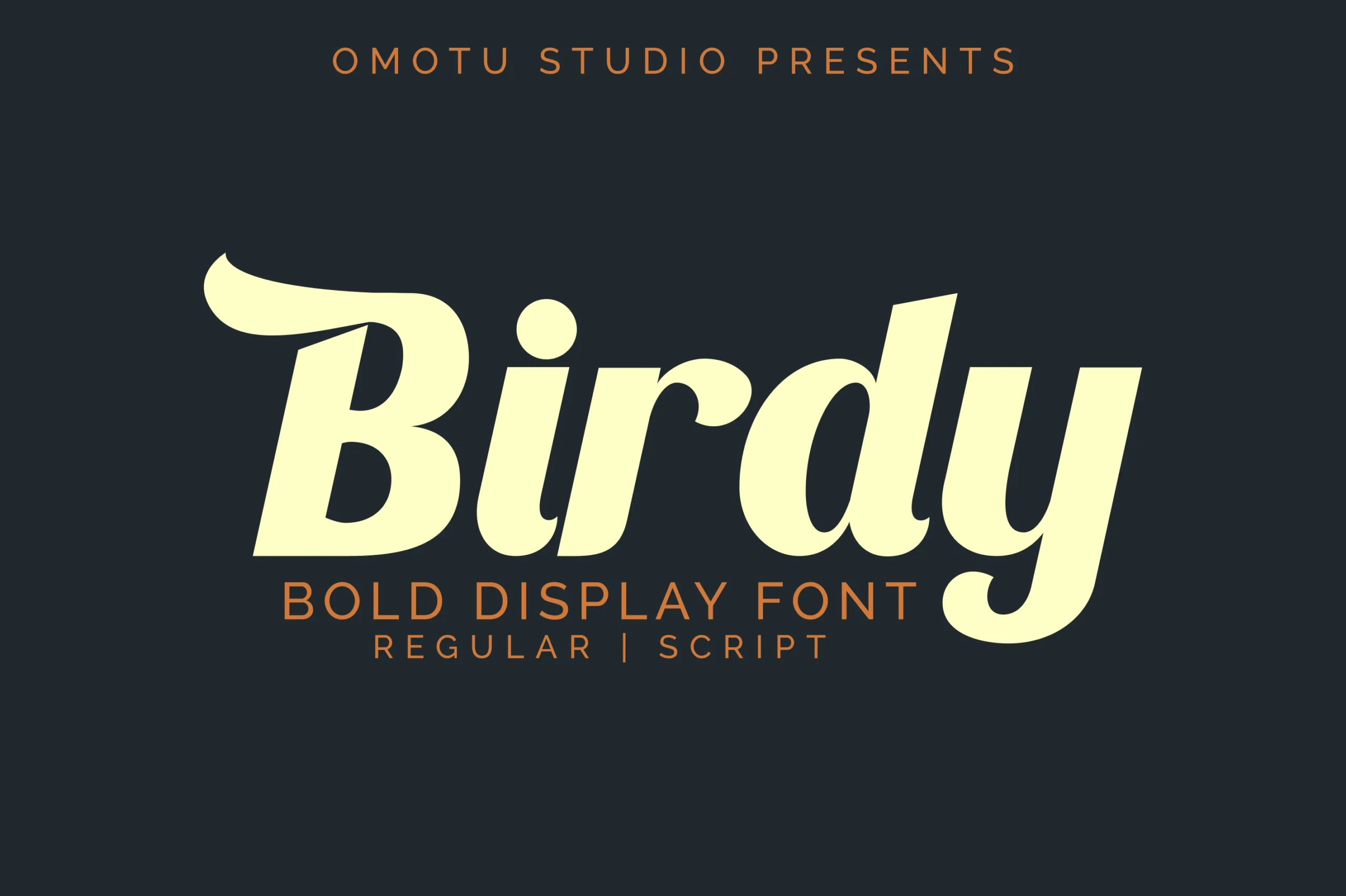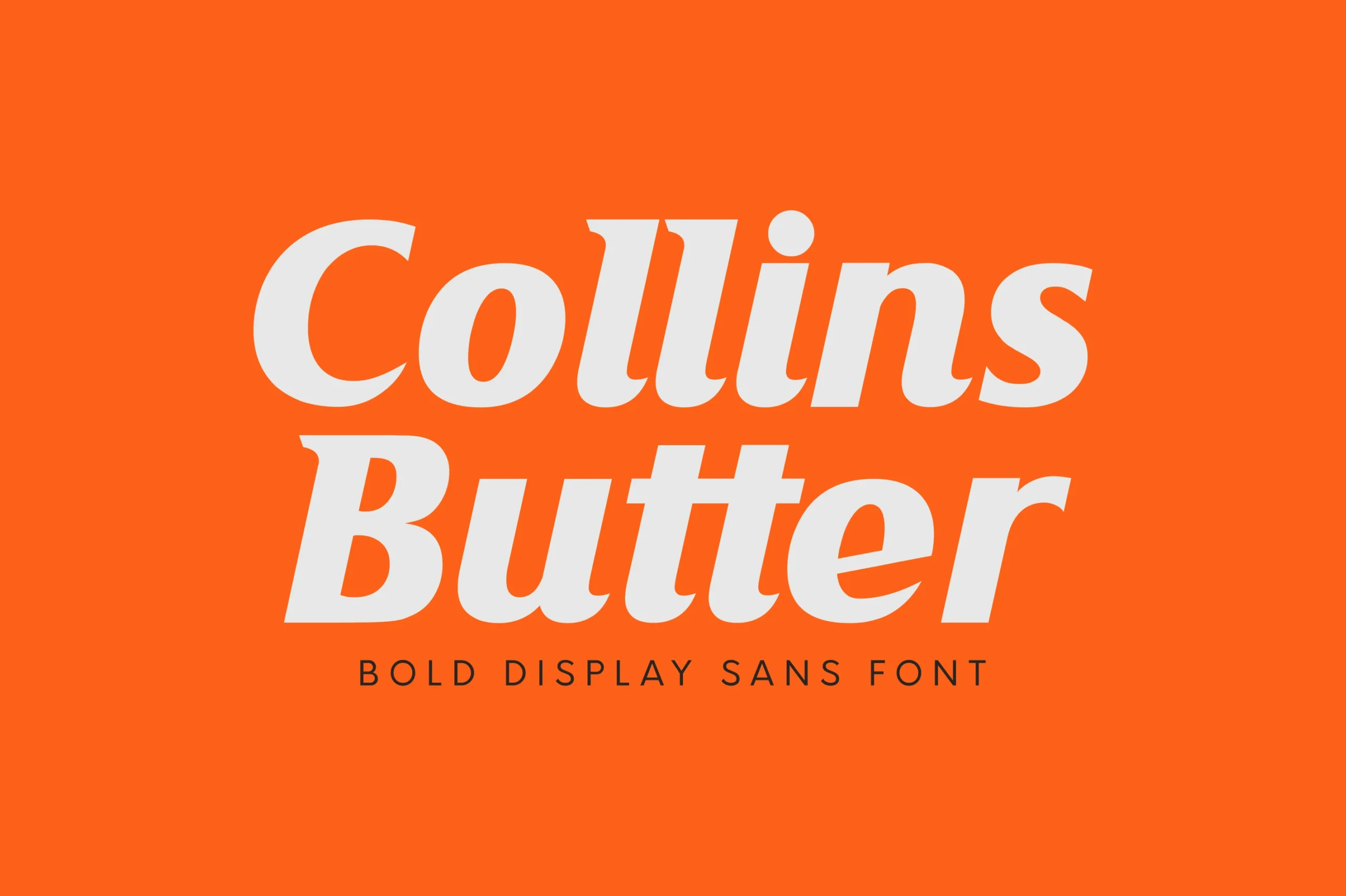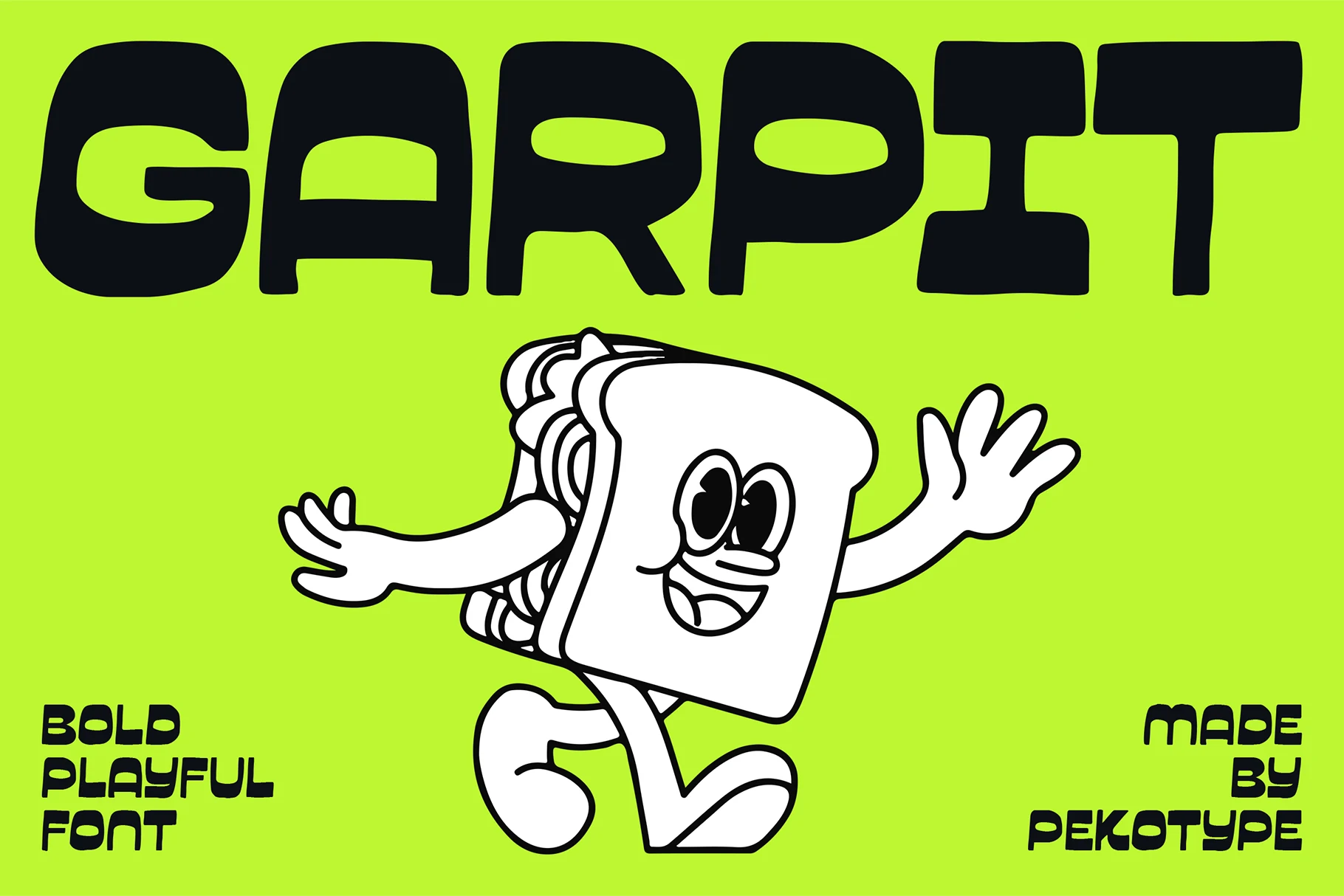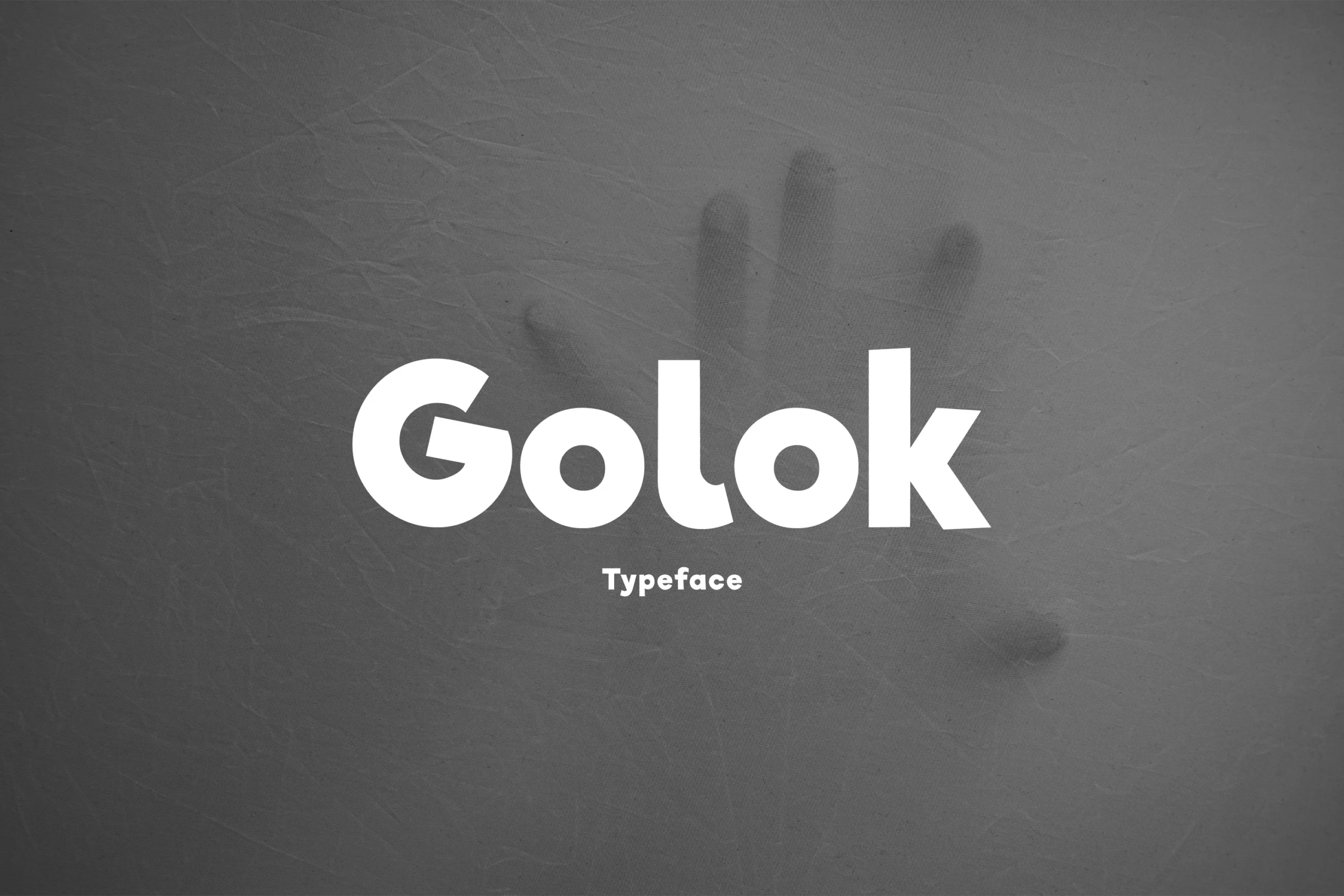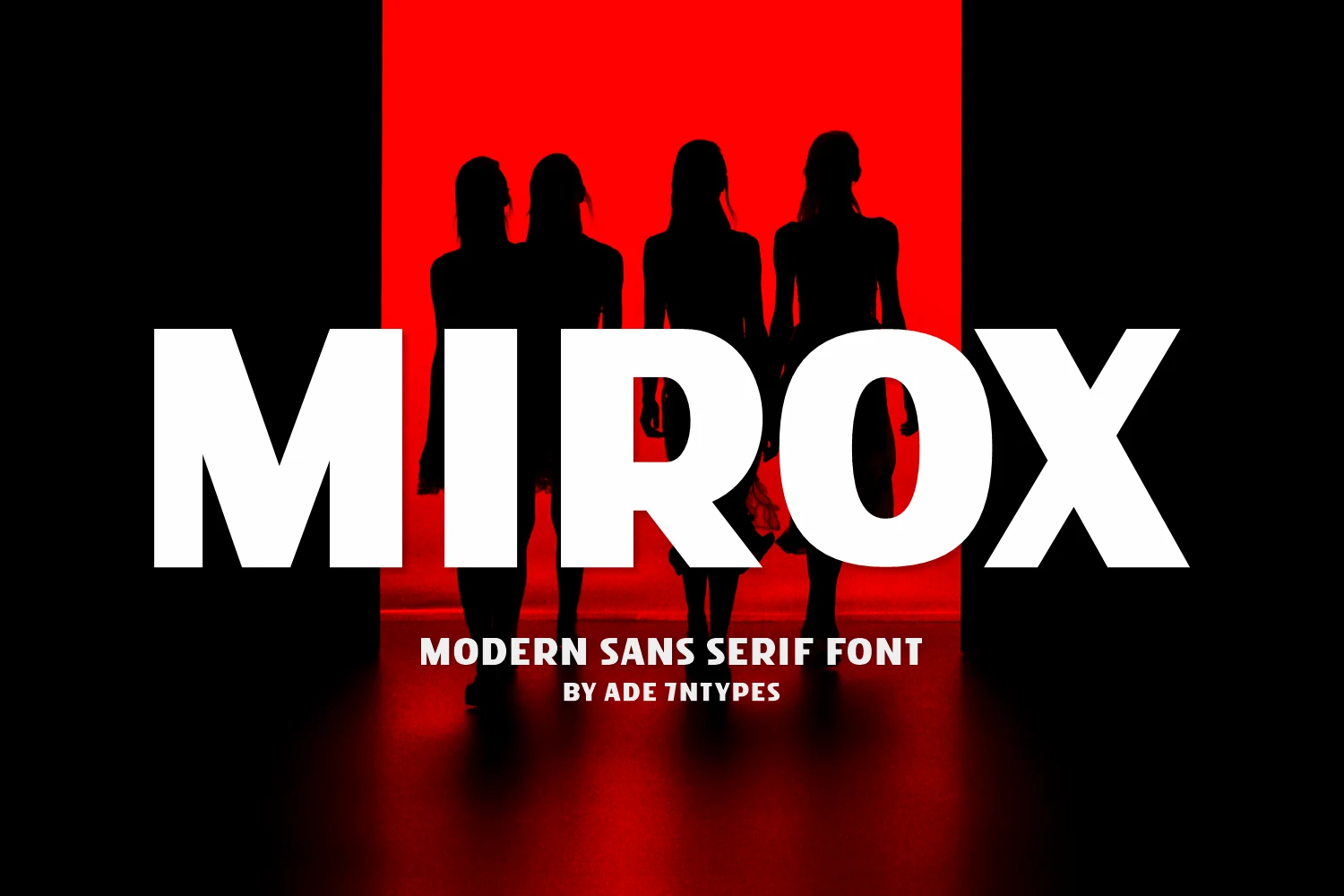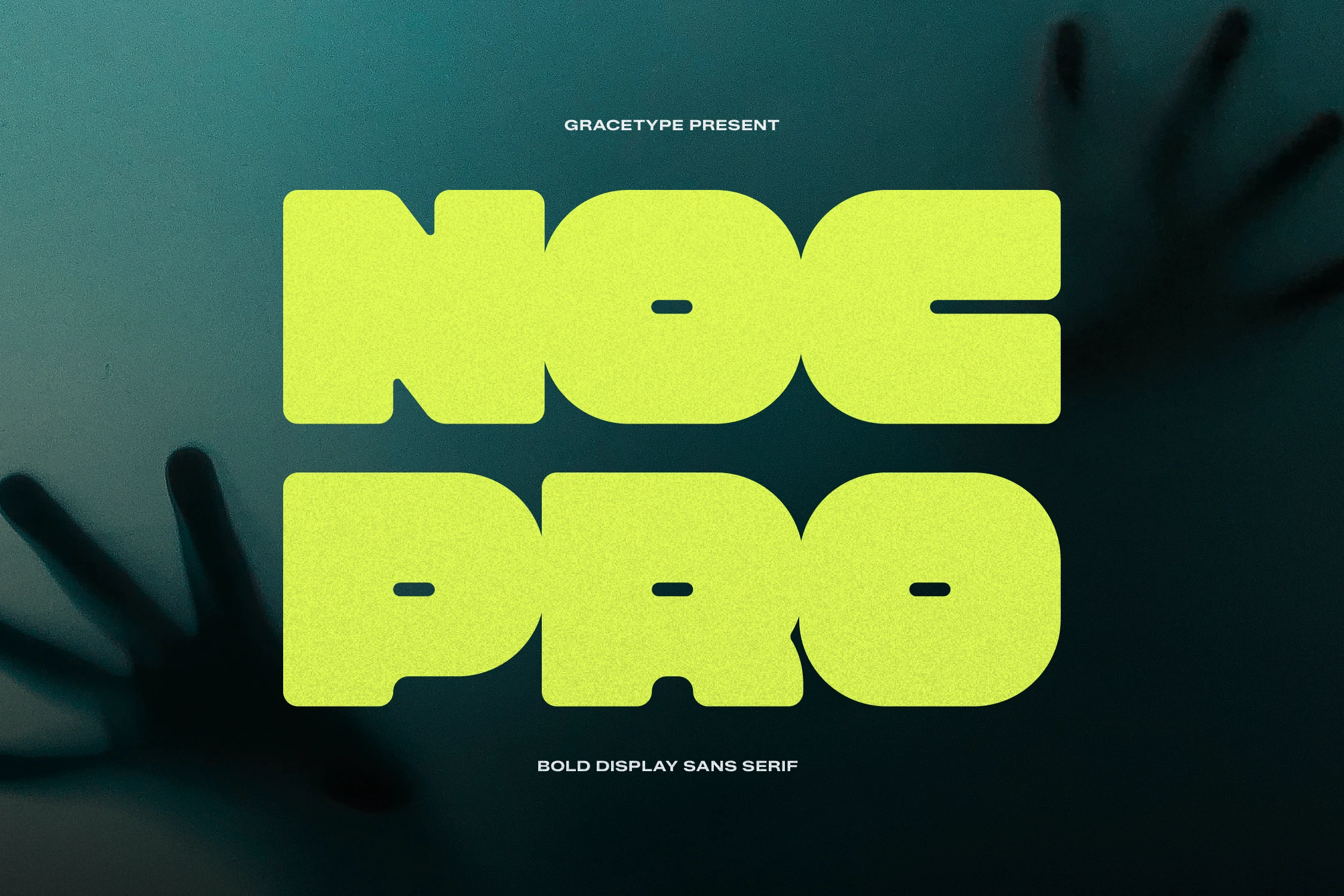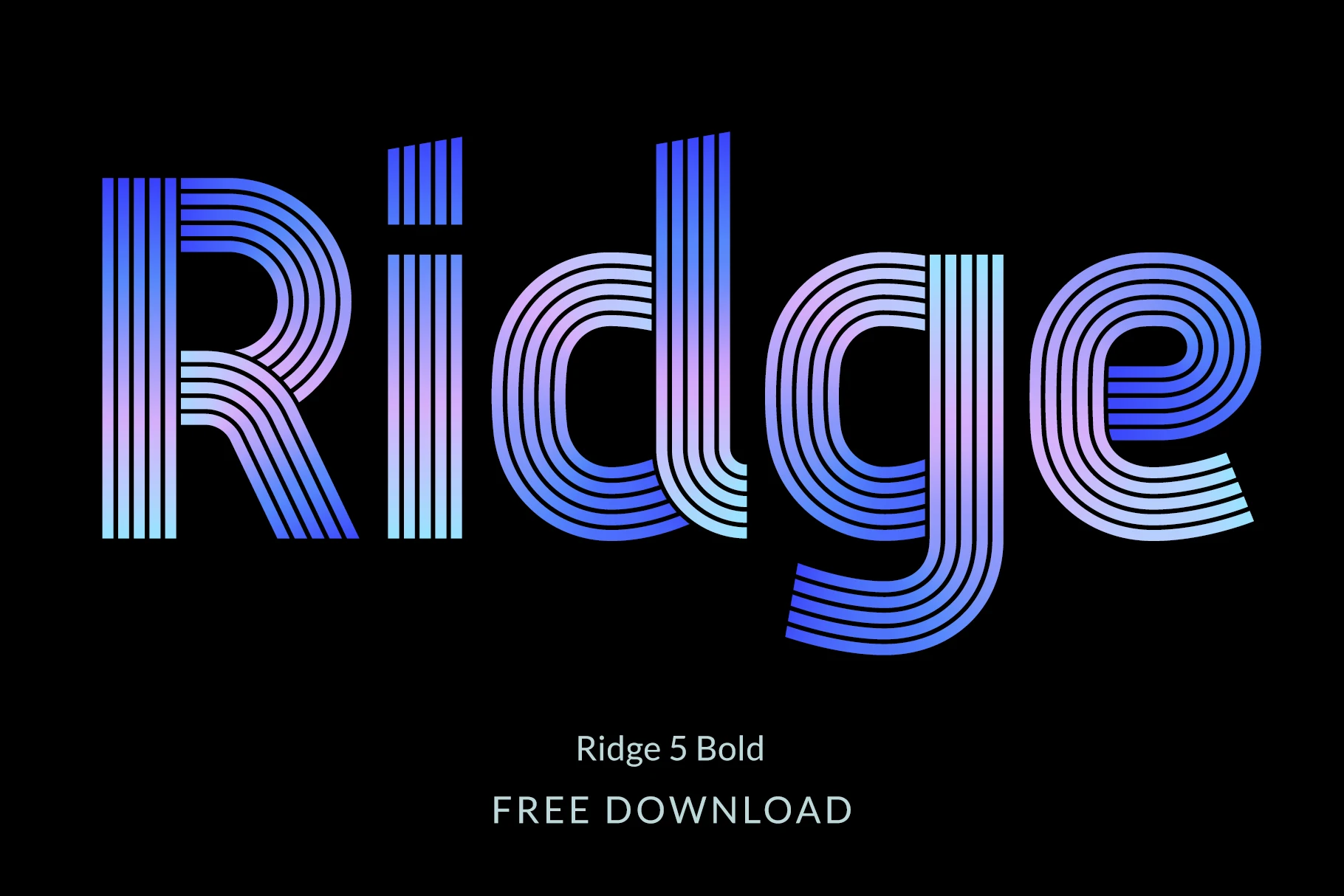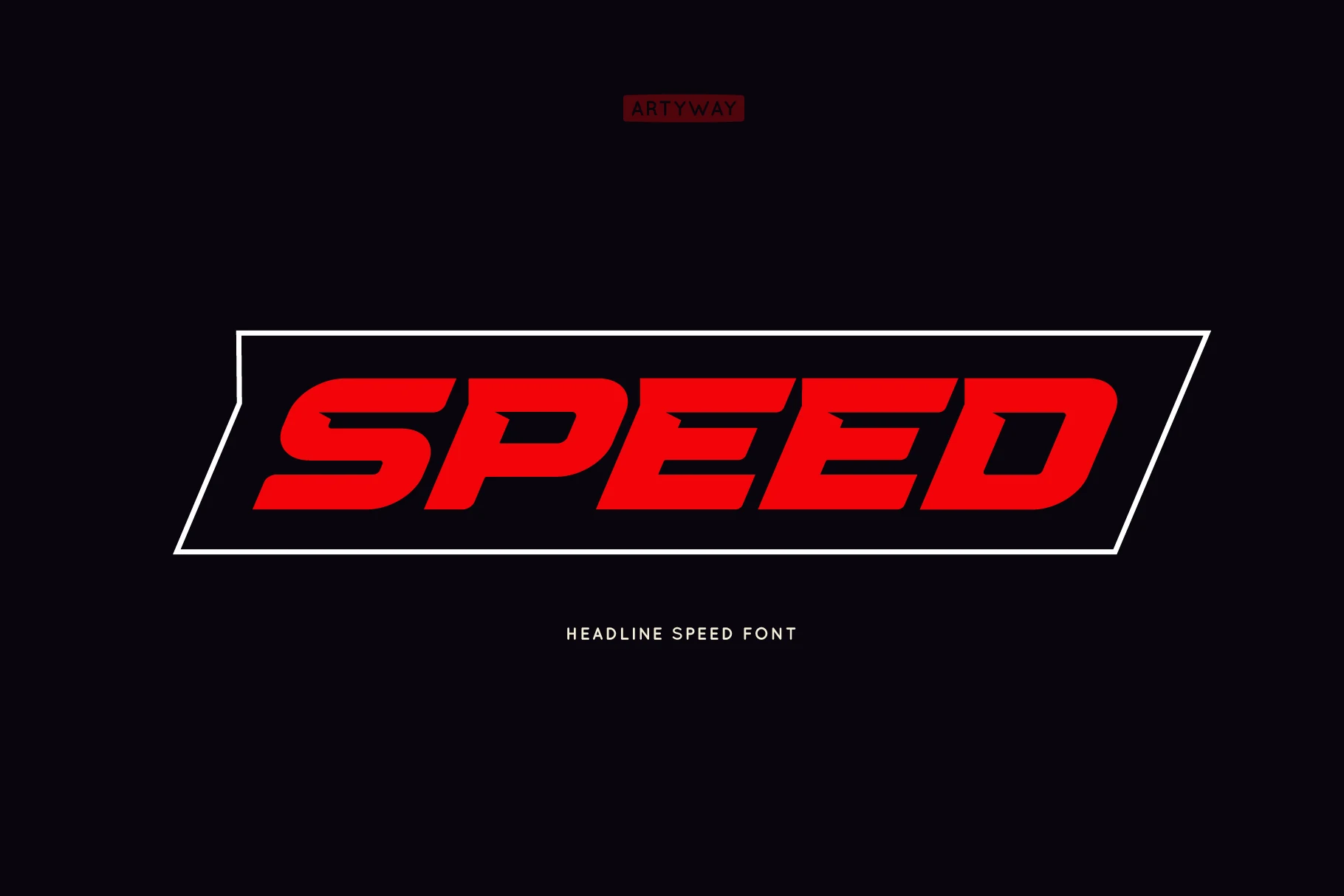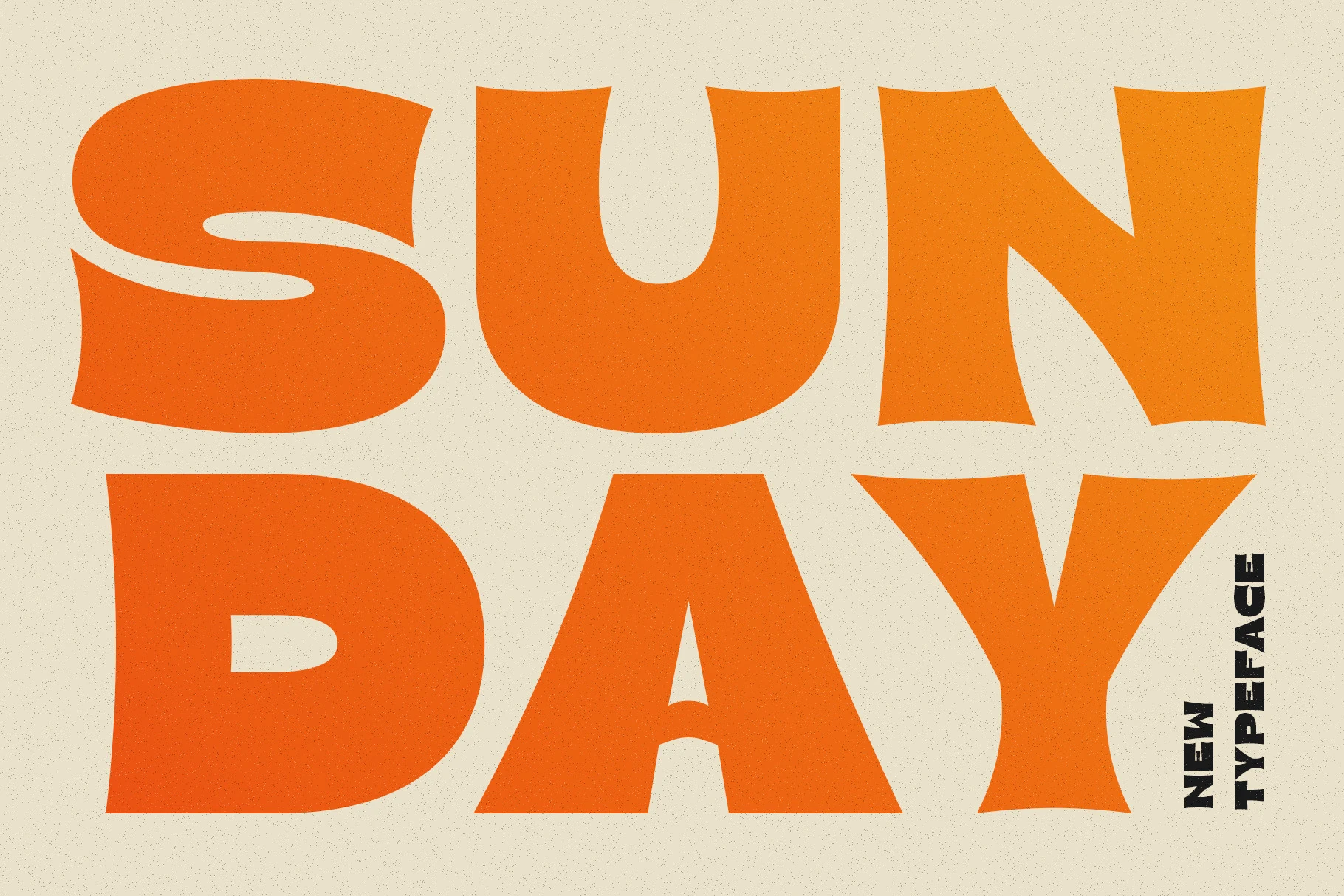
Cover image with font previews from 25 Bold Display Fonts for Stunning Brand Designs in 2026
25 Bold Display Fonts for Stunning Brand Designs in 2026
Bold Display Fonts help designers build louder titles, logos, posters, packaging, merch graphics, and social media visuals. This roundup is for anyone choosing heavy, high-impact type that needs to stand out fast without losing a clear visual direction.
Vintage Slab & Serif Bold Display Fonts
These heavy serif and slab styles suit vintage labels, poster titles, packaging marks, and logos that need a bold old-school presence.
Rysel Font
Rysel Font bold vintage display lettering with flared serifs
Rysel Font has the heavy presence of late 19th-century display lettering, with broad vertical stems, flared wedge serifs, and carved inner curves that keep the wordmark sharp rather than blocky. Its theatrical shape makes Bold Display Fonts feel especially suited to labels, poster titles, and vintage brand marks.
The letters carry enough detail to command attention, but the ornate cuts need clear spacing and strong contrast around them. Keep Rysel to short words or stacked headlines, where the dramatic serifs can define the hierarchy without fighting smaller supporting text.
Bonaro Family Font
Bonaro Family Font bold distressed vintage slab serif preview
Bonaro Family Font uses a heavy slab-serif build with broad counters, squared stems, and blunt bracketed serifs that give the lettering a stamped antique weight. The distressed texture in the preview pushes it toward old shop signs, packaging marks, and poster typography, where Bold Display Fonts need impact before refinement.
The ten-style family is useful when a design needs one vintage voice with different levels of roughness, outline, stamp, or italic emphasis. Keep the spacing firm and the supporting type quieter; Bonaro works best as the main title layer, not as dense paragraph text.
Monteba Font
Monteba Font bold slab serif lettering with squared stems and cut-in details
Monteba Font is built around massive slab-serif forms, with square shoulders, heavy horizontal stress, and narrow cut-in details that add a mechanical edge to the counters. It gives Bold Display Fonts a firm architectural tone, useful for titles that need force rather than ornament.
The dense weight reads best when the wordmark has enough width and clear contrast around it. Use Monteba for short headlines, poster names, or logo blocks, then balance it with cleaner secondary type so its thick serifs do not crowd the hierarchy.
Brianne Font
Brianne Font tall orange retro display lettering with condensed curves
Brianne Font has a tall, condensed display shape with firm vertical stems, rounded bowls, and a retro serif-like rhythm that feels polished without becoming delicate. Its narrow proportions give Bold Display Fonts a cleaner editorial feel, suited to posters, logo titles, and classy promotional graphics.
The long letterforms create strong height in a layout, so Brianne works best when the wordmark has generous horizontal space and clear contrast. Use it for short names or headline lines, and keep supporting type smaller with wider tracking so the main title stays measured and readable.
Rounded & Playful Bold Display Fonts
These chunky rounded fonts work best for kids’ graphics, stickers, playful packaging, cheerful merch, and bold brand titles with a softer tone.
Zenic Font
Zenic Font bold rounded sans serif display lettering
Zenic Font is a chunky display sans with thick block strokes, flat terminals, and a rounded C that softens the otherwise solid construction. The wide letterforms make Bold Display Fonts feel loud without becoming harsh, especially for food packaging, promo graphics, and playful brand marks.
Its clean shapes keep short headlines readable, but the weight needs open spacing and strong color contrast to avoid feeling crowded. Use Zenic as the primary wordmark or title layer, then let smaller supporting text stay lighter so the heavy forms hold the composition.
Garpit Font
Garpit Font bold playful all-caps display lettering with chunky black shapes
Garpit Font has a chunky all-caps build with swollen curves, tight inner counters, and reverse-contrast stress that gives each letter a rubbery, irregular rhythm. Its oversized shapes make Bold Display Fonts feel energetic and graphic rather than rigid.
The playful weight works best in short words, food branding, youth packaging, and loud promo titles where personality matters more than restraint. Keep the tracking slightly open and avoid busy textures behind it, because the small counters need clear negative space to stay readable.
Bold Kiddo Font
Bold Kiddo Font chunky rounded black display lettering
Bold Kiddo Font uses thick, rounded letterforms with soft corners, wide bowls, and slightly irregular proportions that keep the alphabet friendly rather than polished. Its chunky silhouette gives Bold Display Fonts a clear kids’ craft direction for birthday graphics, school projects, nursery pieces, and cheerful merch.
The broad shapes are useful for stickers, vinyl cuts, sublimation designs, and custom T-shirts because small fragile details are avoided. Keep the spacing open enough around tight pairs like KIDDO, and pair it with a simple supporting font so the rounded headline stays readable.
Titan Font
Titan Font chunky black rounded display lettering
Titan Font has a dense, rounded display build with oversized lowercase forms, heavy vertical weight, and smooth corners that make the word feel solid but not severe. Its modern retro tone gives Bold Display Fonts a strong fit for packaging, streetwear-style graphics, posters, and logo marks with a playful edge.
The tight counters and thick stems need clear spacing, especially around compact letters like t and a. Use Titan for short headline blocks or single-word branding, then keep secondary text lighter and more open so the chunky main title keeps control of the layout.
Rose Titan Font
Rose Titan Font chunky pink rounded display lettering
Rose Titan Font has a thick retro display shape with soft corners, rounded bowls, and tight internal cuts that make the letters feel powerful without turning harsh. Its smooth blocky structure gives Bold Display Fonts a softer beauty-branding angle for posters, packaging, and statement logo work.
The compact spacing and heavy curves work best when the headline is short and scaled up. Keep contrast high around the pink, rounded forms, and let lighter script or simple sans text handle supporting lines so Rose Titan stays dominant in the title hierarchy.
Golok Font
Golok Font preview with thick rounded bold display lettering
Golok Font has a thick rounded build with heavy stems, soft circular counters, and a blunt angled cut through the uppercase-style G. Its compact word shape feels clean rather than decorative, giving Bold Display Fonts a more casual, logo-ready direction.
The dense strokes work best when the title has enough surrounding space and a clear background behind it. Keep tracking moderate, avoid squeezing long words, and let the rounded bowls carry the visual weight in poster headers, badges, product marks, and short brand names.
Sunday Font
Sunday Font preview with oversized orange retro bold display lettering
Sunday Font pushes Bold Display Fonts toward a loud retro poster style, with oversized rounded strokes, bulging curves, and wedge-like cuts that keep the letters from feeling too soft. The S has a sweeping inner channel, while the broad U, D, A, and Y create a dense, sunny block of type.
Use it for short words and compact headline stacks where the exaggerated proportions can become the main graphic element. Strong contrast and generous margins matter here; tight layouts can make the swollen forms feel cramped, while open space lets the playful weight read clearly.
Corva Bold Inside Font
Corva Bold Inside Font preview with chunky cream rounded display lettering
Corva Bold Inside Font has a chunky display build with soft inflated curves, wide counters, and subtly warped verticals that keep the letters from looking mechanical. Its oversized caps give Bold Display Fonts a playful, confident feel without relying on outlines or extra texture.
The font works well when the type becomes the main graphic shape in a poster, package front, or brand headline. Use short stacked phrases, keep the background contrast high, and avoid over-tight tracking; the rounded forms need enough separation to stay readable at full weight.
Retro World Font
Retro World Font preview with colorful groovy bubble display lettering
Retro World Font has a loose groovy build with swollen strokes, rounded slab-like ends, and playful uneven curves that make each letter feel hand-shaped. Its cheerful 1970s rhythm gives Bold Display Fonts a cute, nostalgic direction rather than a hard poster tone.
The letterforms are best kept large and short, especially when using multiple colors or shadow effects. Let the chunky shapes overlap the layout as the main illustration, but keep supporting text simpler so the bubbly curves stay readable in stickers, classroom graphics, party titles, and kids’ merchandise.
Slanted Sport & Motion Bold Display Fonts
These italic and motion-led styles are built for racing graphics, sports branding, energetic posters, food labels, and titles that need forward movement.
Birdy Font
Birdy Font bold slanted display lettering with rounded script curves
Birdy Font brings a heavy slanted display style with soft curves, thick rounded bowls, and a sweeping entry stroke on the capital B. The long descender on the y gives the wordmark a loose script rhythm, so Bold Display Fonts feel more fluid than rigid here.
The regular and script styles give designers room to separate a strong headline from a more expressive logo treatment. Keep Birdy in short titles with generous surrounding space; its thick joins and rounded counters need contrast and scale to stay clean.
Speed Font
Speed Font bold slanted display lettering with sharp angular cuts
Speed Font uses a sharply slanted display structure with thick strokes, clipped joins, and angular cut-ins that suggest forward motion. Its compact, racing-inspired rhythm gives Bold Display Fonts a direct automotive feel for sports graphics, event posters, and high-impact logo work.
The letterforms stay readable because the counters are open enough despite the heavy weight, but the strong angle needs clean horizontal space around it. Use Speed for short names, monograms, or headline strips, where the italic force can lead the composition instead of competing with dense copy.
Forega Sport Font
Forega Sport Font bold italic sports display lettering with aerodynamic cuts
Forega Sport Font has a fast italic stance with wide squared letters, rounded corners, and sharp aerodynamic cuts through the strokes. Its racing-style construction gives Bold Display Fonts a strong competitive tone for team identities, motorsport graphics, athletic branding, and performance-led posters.
The letterforms are bold but still readable because the counters stay open and the cuts follow a consistent horizontal rhythm. Use Forega Sport across short names or stacked title lines, keeping contrast high and spacing controlled so the speed effect feels intentional rather than crowded.
Collins Butter Font
Collins Butter Font preview with bold italic white display lettering
Collins Butter Font has a heavy italic stance with thick rounded strokes, soft wedge-like terminals, and compact counters that give each word a smooth forward push. It brings Bold Display Fonts into a more retro-commercial space, closer to a confident food label or punchy editorial masthead.
The solid and hollow styles give designers two levels of density for the same layout: filled for strong logos and headlines, hollow when the composition needs a lighter display layer. Keep spacing slightly open around the italic forms, especially in stacked packaging or poster typography where the broad curves can quickly dominate the page.
Geometric & Futuristic Bold Display Fonts
These dense geometric fonts suit sci-fi titles, streetwear marks, editorial posters, banners, and modern branding where structure matters more than ornament.
Ridge 5 Bold Font
Ridge 5 Bold Font striped multi-line display lettering in blue gradient
Ridge 5 Bold Font uses a multi-line construction where each letter is built from parallel stripes, rounded bends, and clean geometric terminals. The effect gives Bold Display Fonts a futuristic retro rhythm, with enough structure for posters, album-style graphics, and logo titles that need an immediate graphic hook.
The lowercase set and European diacritics make it more useful than an uppercase-only novelty face, while alternate characters help adjust repeated shapes in tight compositions. Keep the background simple and the word length controlled, because the striped interiors need clear negative space to stay sharp.
Nocpro Font
Nocpro Font ultra-thick futuristic sans serif display lettering
Nocpro Font is built from ultra-thick block shapes with rounded outer corners, tiny horizontal apertures, and compressed negative spaces that make each word feel dense and futuristic. Its industrial weight gives Bold Display Fonts a severe, graphic tone for streetwear marks, sci-fi titles, event posters, and aggressive sports layouts.
The font works when the headline is allowed to dominate the frame, but the tight cuts need scale and clean contrast to stay legible. Keep word counts short, avoid narrow tracking, and let lighter supporting type handle details while Nocpro carries the main visual impact.
Mirox Font
Mirox Font bold white modern sans serif display lettering
Mirox Font uses a heavy modern sans structure with wide uppercase letters, clean vertical stems, and sharp diagonal cuts that make the wordmark feel direct and cinematic. Its massive white forms give Bold Display Fonts a strong editorial-poster presence, especially when the design needs a bold title over photography or high-contrast color.
The letter spacing can stay fairly tight because the counters are open and the shapes are simple, but Mirox still needs scale to carry its impact. Use it for short brand names, cover-style headlines, or campaign graphics, then keep smaller text compact and secondary so the main title stays dominant.
Boldeon Font
Boldeon Font preview with heavy geometric uppercase display lettering
Boldeon Font is built from broad geometric capitals with dense strokes, rounded bowls, squared terminals, and tight horizontal rhythm. It fits Bold Display Fonts where the headline needs a solid poster-like mass rather than decorative detail.
The compact counters and near-monoline weight make it strong for logos, packaging, and editorial openers, but it needs clear spacing around the wordmark so the heavy forms do not merge. The included alternates help vary a short title while keeping the same blocky voice.
Urban Block Font
Urban Block Font preview with massive cream block sans display lettering
Urban Block Font uses an all-caps block sans structure with ultra-heavy strokes, tight spacing, chamfered corners, and narrow internal counters. Its stacked, concrete-like mass gives Bold Display Fonts a hard industrial tone suited to aggressive title systems.
The typeface works best when the words are short and the layout gives the edges room to stay legible. Use high contrast, avoid cramped side margins, and let the squared rhythm drive posters, sports-style marks, streetwear graphics, and merchandise headlines.
Turin Font
Turin Font preview with black condensed bold sans display lettering
Turin Font is a compressed black display sans with hard rectangular tops, narrow counters, and a deep curved cut inside the R. The letters lock into a tight vertical rhythm, making it a direct fit for Bold Display Fonts that need impact without decorative noise.
Use it where hierarchy matters: one large word, a sharp supporting label, and high contrast around the type. Its dense stroke width can close up in smaller settings, so keep tracking controlled but not squeezed, especially in posters, banners, and brand headlines.
Horror & Distorted Bold Display Fonts
These expressive horror styles are display-only choices for Halloween graphics, band merch, comic posters, seasonal titles, and designs that need unstable energy.
Spooky Friday Font
Spooky Friday Font preview with chunky rounded bold display lettering
Spooky Friday Font uses chunky rounded capitals with uneven horror-poster cuts, soft corners, and compact spacing. It sits on the playful side of Halloween lettering, but the warped verticals and heavy silhouettes give it enough bite for a Bold Display Fonts roundup.
The wide strokes suit T-shirt art, POD graphics, party titles, and cut-file designs where the word shape needs to read fast. Keep it to short phrases, use strong contrast behind the letters, and avoid adding busy texture around the outline; the irregular forms already provide the decorative movement.
Lazzleto Font
Lazzleto Font preview with jagged red vintage horror display lettering
Lazzleto Font turns Bold Display Fonts toward vintage horror, with jagged handmade strokes, slashed diagonals, warped baselines, and uneven letter widths. The forms feel cut from a retro slasher poster rather than drawn from a clean sans grid, giving each word a loud, unstable rhythm.
Use it as a display-only face for horror titles, underground poster work, band-style merch, or comic-inspired graphics. Keep the wording short, scale it large, and pair it with plain supporting type; the distorted anatomy already supplies the motion, so extra effects can quickly make the text harder to read.
Conclusion
Choose slab and serif styles when you need vintage authority, rounded fonts for playful packaging, sport styles for motion, geometric fonts for clean impact, and horror fonts for expressive seasonal graphics.